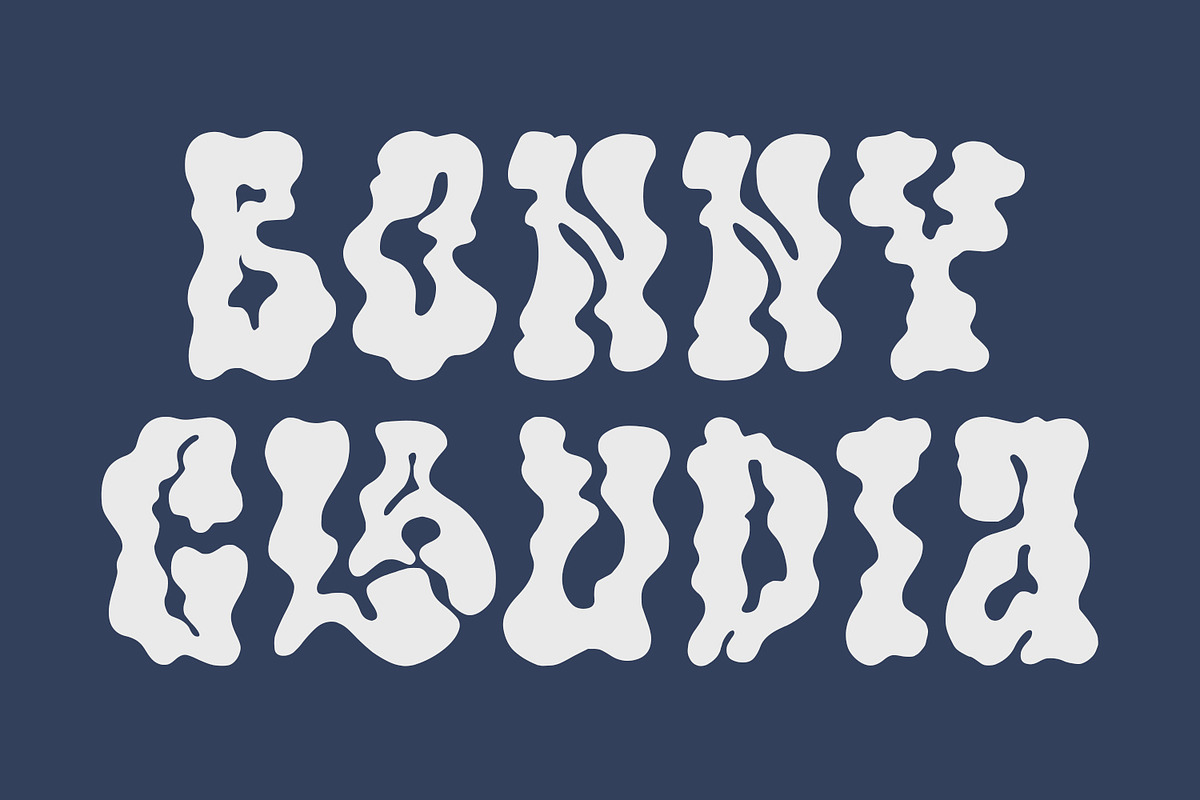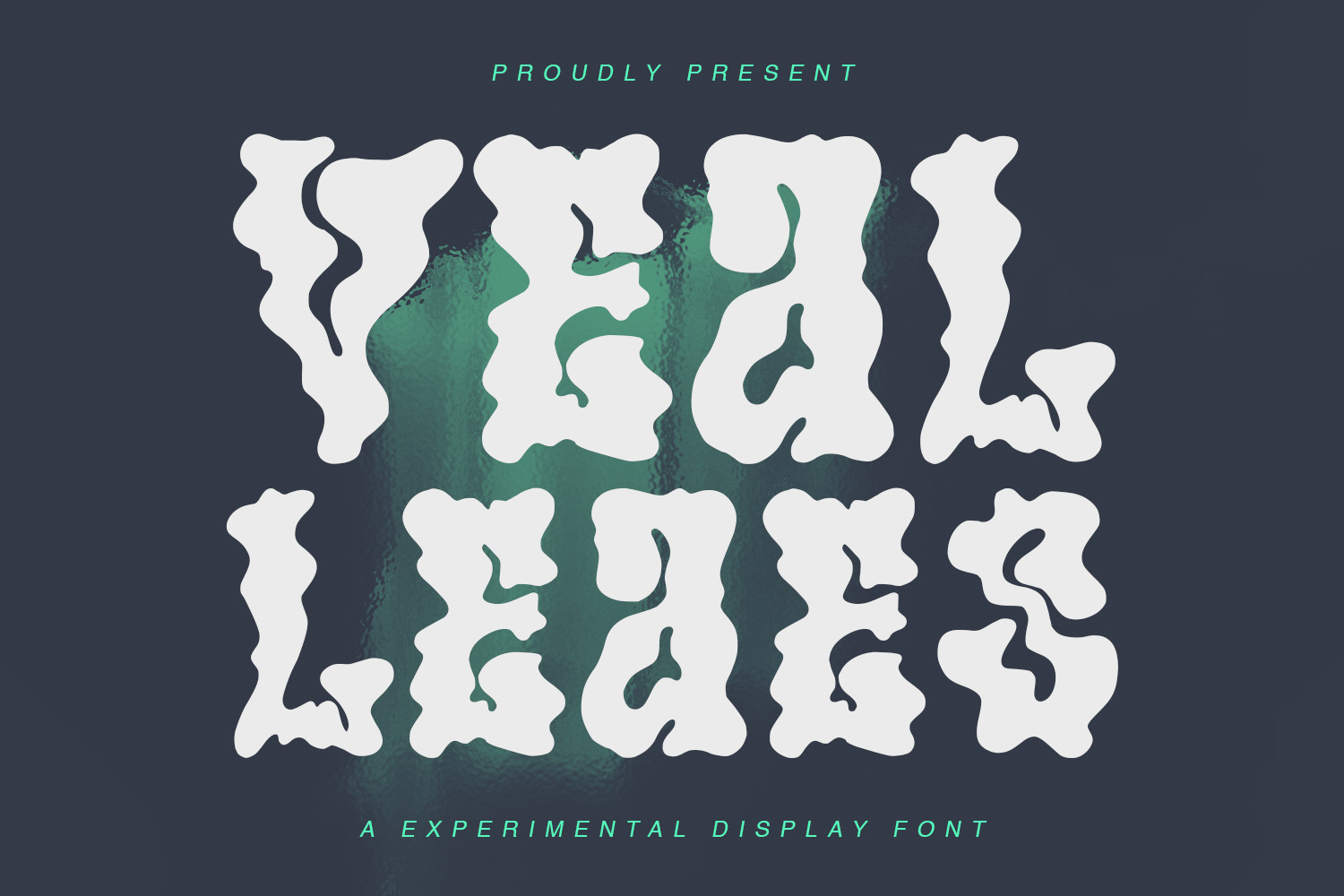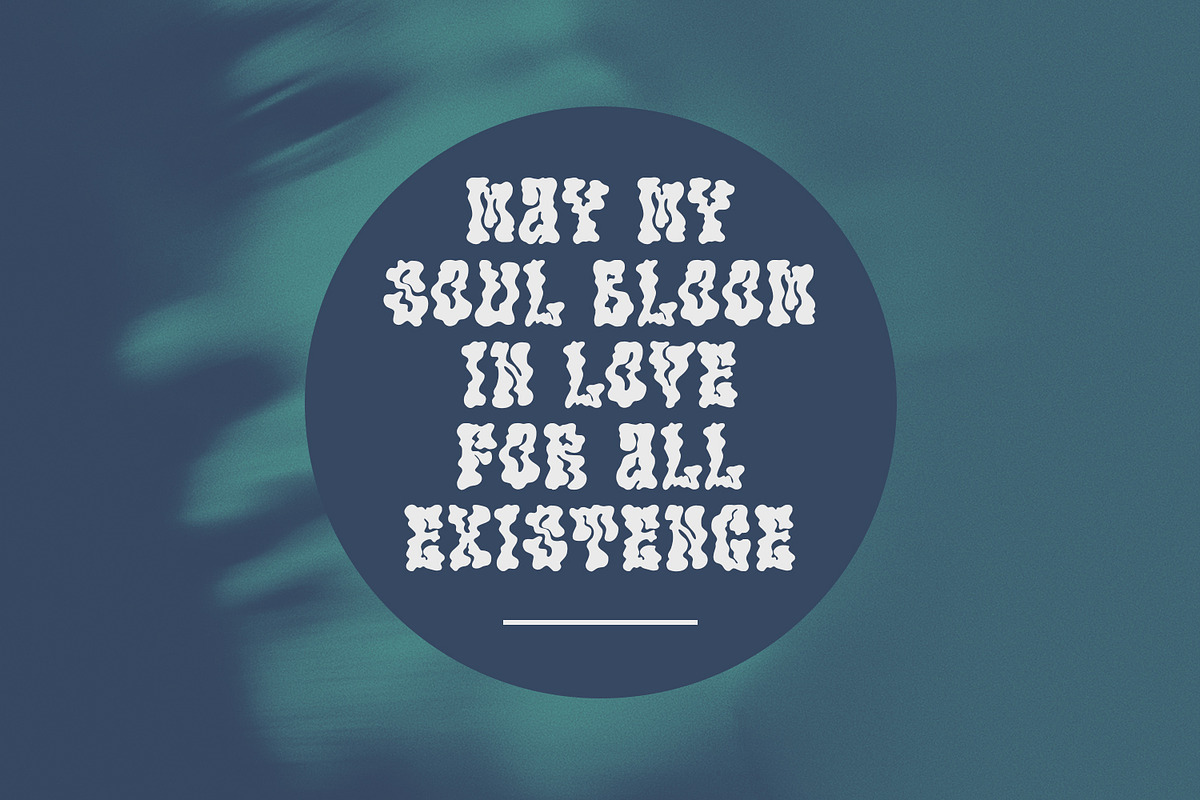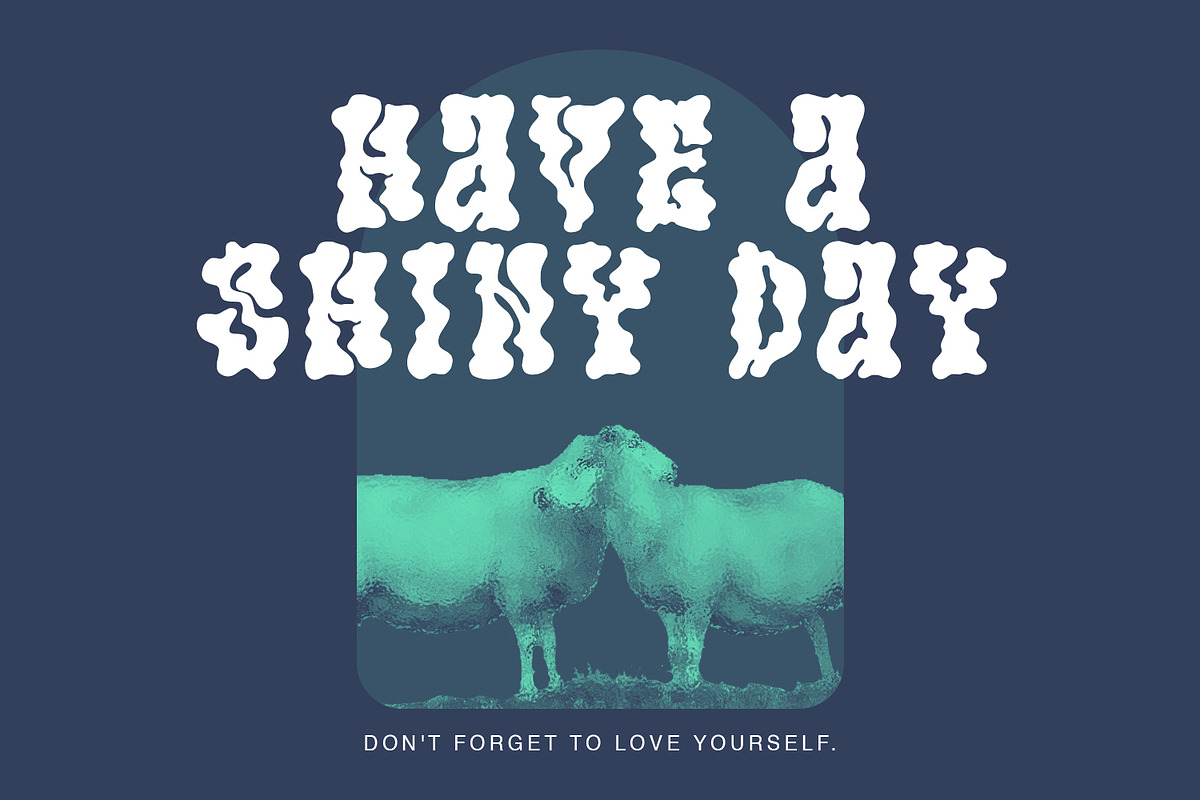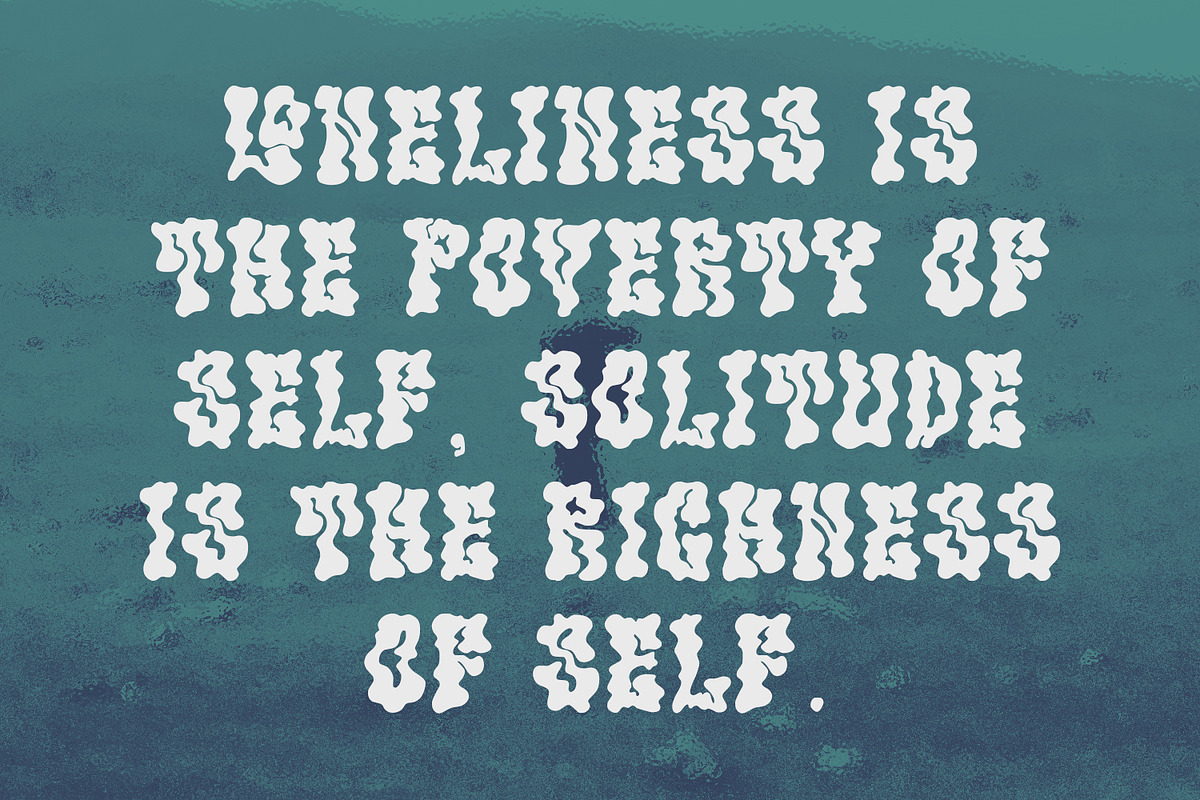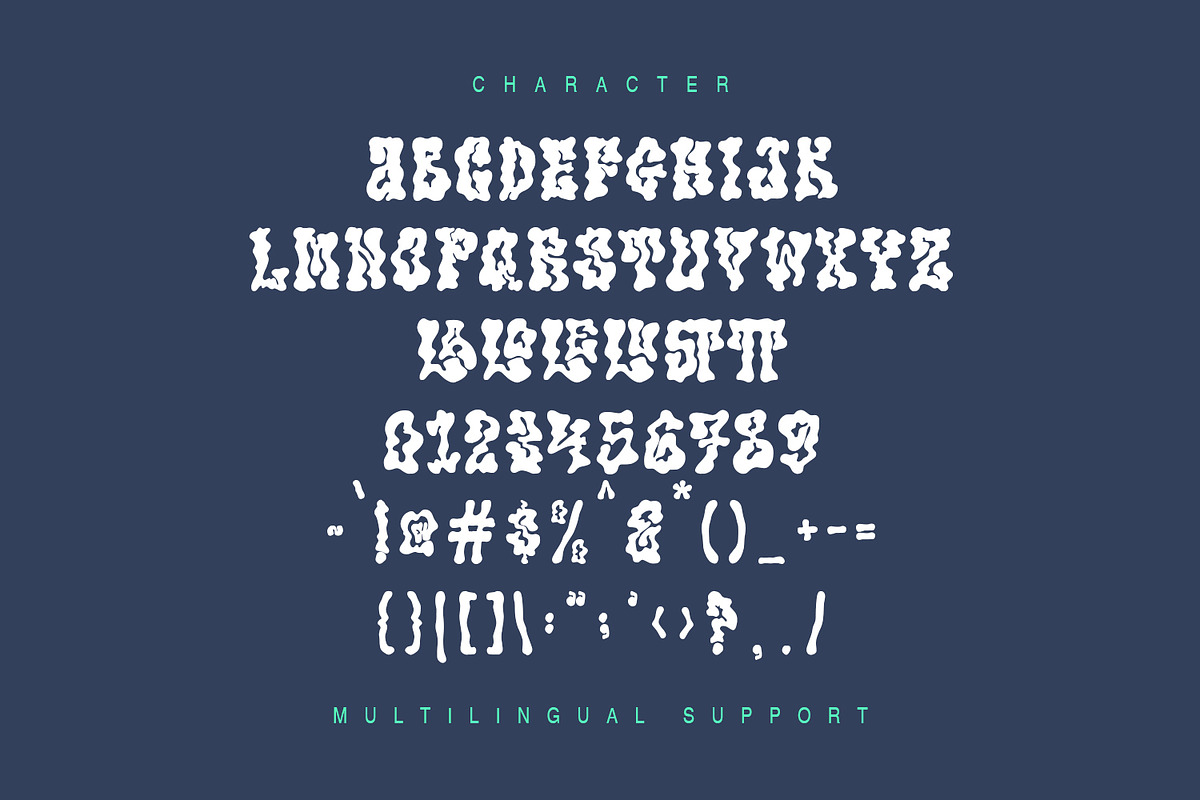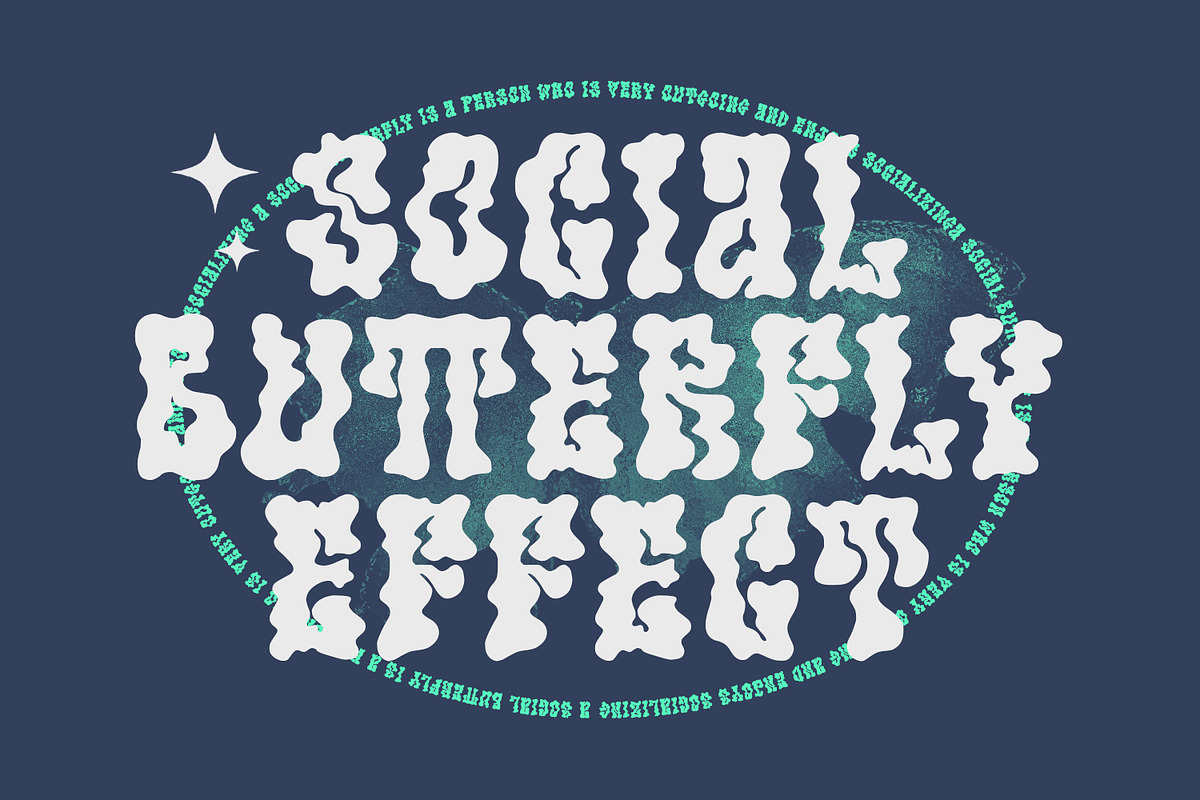
Vealleaes Experimental Display Font
Vealleaes is a experimental display font. To give you an extra creative work include ligatures. Vealleaes experimental display font support multilingual more than 100+ language. This font is good for logo design, Social media, Movie Titles, Books Titles, a short text even a long text letter and good for your secondary text font with sans or serif. Make a stunning work with Vealleaes experimental display font.
- Include Ligature and Multilingual Support